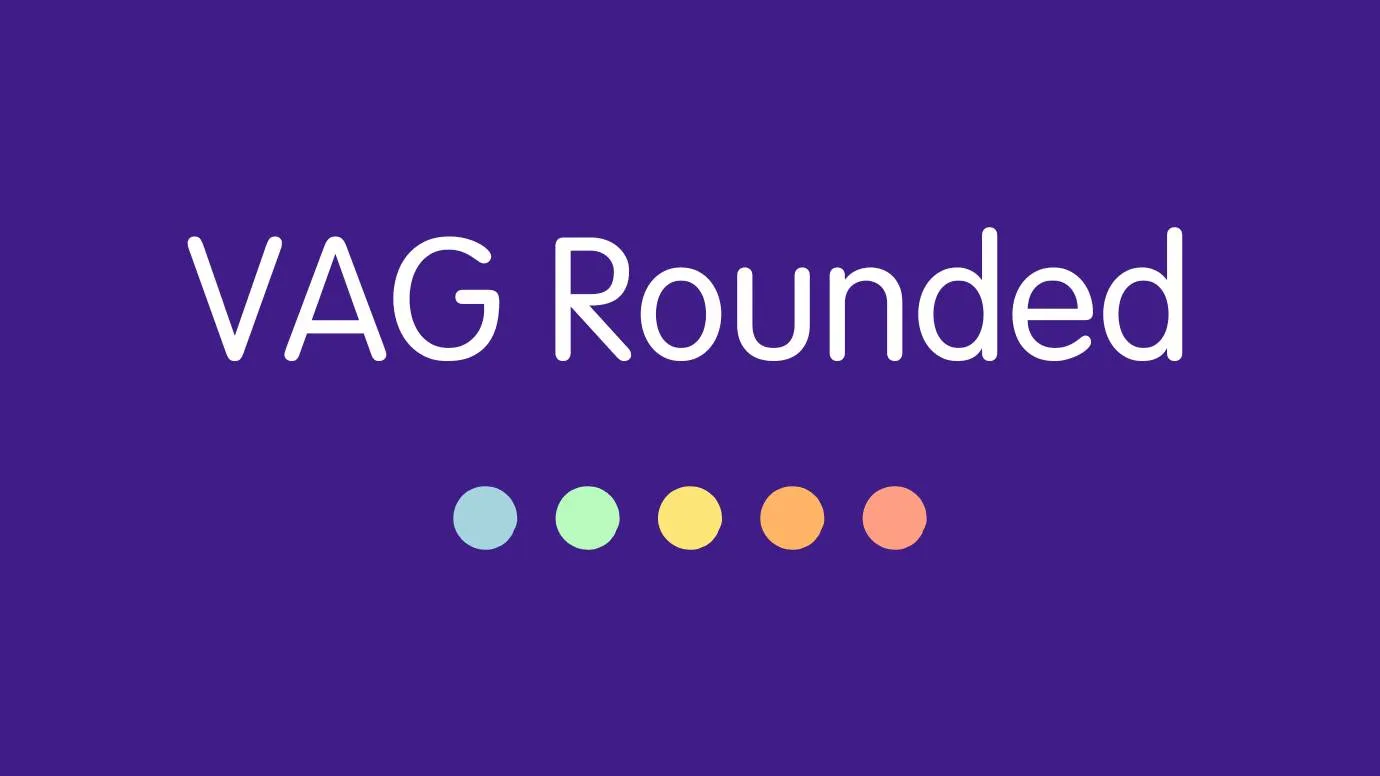
Vag Rounded is a modern geometric sans serif typeface family that comes in 8 styles and 4 weights including Thin, Light, Bold, and Black. This amazing typeface was designed on the typographic voice for the Volkswagen AG.
The most similar fonts are Trade Gothic Font, Neo Sans Font, FF Din Font, and Proxima Nova font and these are also the best alternatives of this typeface.
NameVAG Rounded Font
DesignerGerry Barney
FoundryLinotype Corporation
Date Released1989